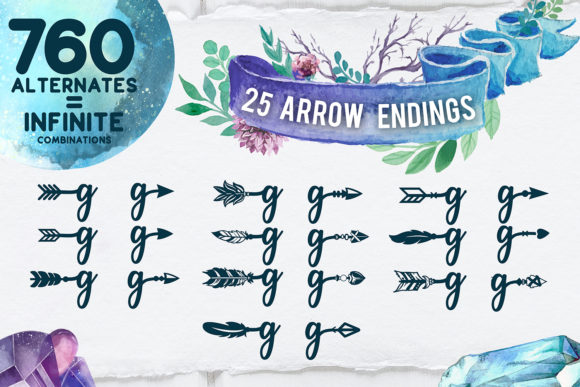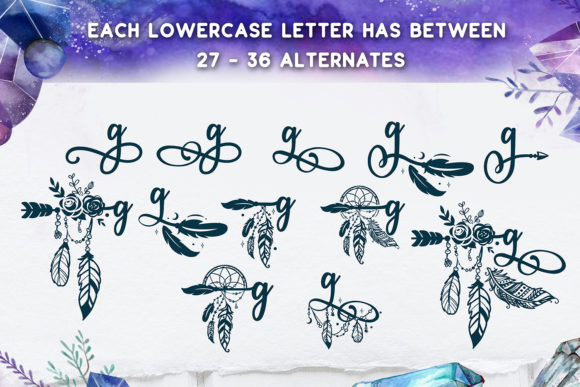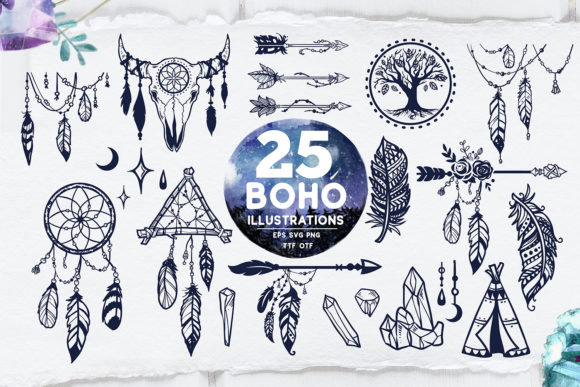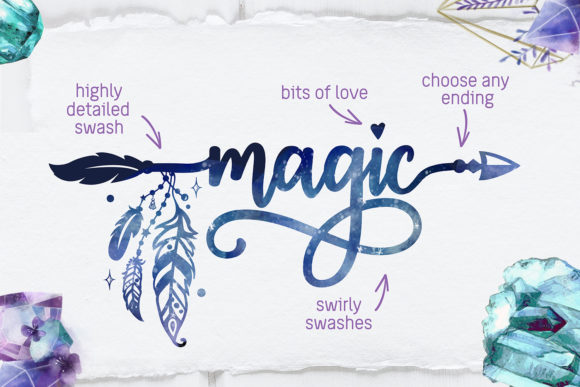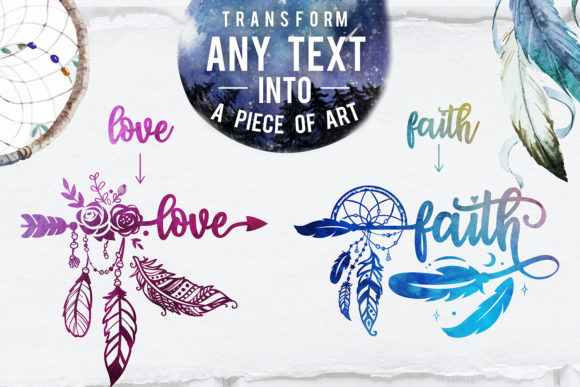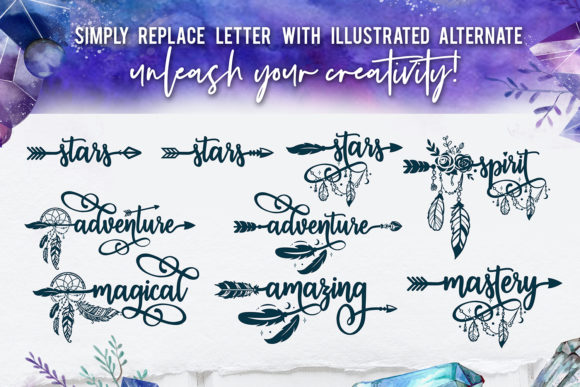
Unleash Your Creativity with Bohema Spirit Font
Are you a designer or crafter looking for a font that can add a touch of elegance and charm to your designs? Look no further than the Bohema Spirit Font. This beautiful and bold font is perfect for anyone who wants to add a unique feel to their designs. In this article, we’ll take a closer look at the Bohema Spirit Font, its features, and how you can use it to take your designs to the next level.
What is Bohema Spirit Font?
Bohema Spirit Font is a stunning font that is both charming and elegant. Its unique feel and amazing elements make it the perfect choice for designers and crafters who want to add a special touch to their designs. Whether you’re working on a logo, a poster, or a digital project, Bohema Spirit Font is sure to inspire your creativity.
Features of Bohema Spirit Font
So, what makes Bohema Spirit Font so special? Here are just a few of its key features:
- Unique feel: Bohema Spirit Font has a one-of-a-kind feel that sets it apart from other fonts. Its bold and elegant design makes it perfect for adding a touch of sophistication to your designs.
- Charming and elegant: This font is both charming and elegant, making it perfect for a wide range of design projects. Whether you’re working on a formal or informal project, Bohema Spirit Font is sure to impress.
- Amazing elements: Bohema Spirit Font includes a range of amazing elements that can help take your designs to the next level. From swashes to ligatures, this font has everything you need to create stunning designs.
How to Use Bohema Spirit Font
So, how can you use Bohema Spirit Font in your designs? Here are a few ideas to get you started:
- Logos: Bohema Spirit Font is perfect for creating stunning logos that will help your brand stand out. Its bold and elegant design makes it ideal for businesses that want to make a statement.
- Posters: Whether you’re creating a poster for a concert, a sale, or a special event, Bohema Spirit Font is sure to grab attention. Its unique feel and amazing elements make it perfect for creating eye-catching posters.
- Digital projects: Bohema Spirit Font is also perfect for digital projects, such as social media graphics, email headers, and more. Its elegant design makes it ideal for creating professional-looking digital content.
Tips for Using Bohema Spirit Font
Here are a few tips for using Bohema Spirit Font in your designs:
- Experiment with different sizes: Bohema Spirit Font looks great in a range of sizes, from large and bold to small and elegant. Experiment with different sizes to find the one that works best for your design.
- Play with colors: Bohema Spirit Font looks great in a range of colors, from bold and bright to soft and pastel. Experiment with different colors to find the one that works best for your design.
- Use it with other fonts: Bohema Spirit Font can be used with other fonts to create stunning contrast and visual interest. Experiment with different font combinations to find the one that works best for your design.
In conclusion, Bohema Spirit Font is a beautiful and bold font that is perfect for designers and crafters who want to add a touch of elegance and charm to their designs. Its unique feel and amazing elements make it the perfect choice for a wide range of design projects, from logos and posters to digital projects. With its ease of use and flexibility, Bohema Spirit Font is sure to inspire your creativity and take your designs to the next level.